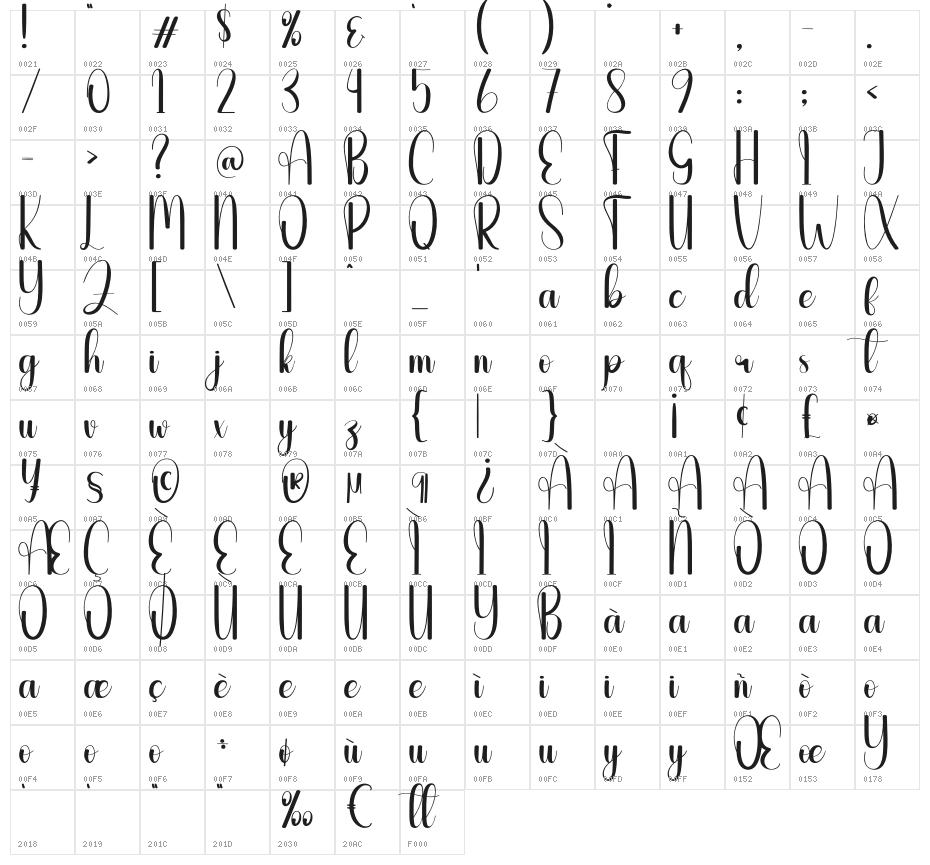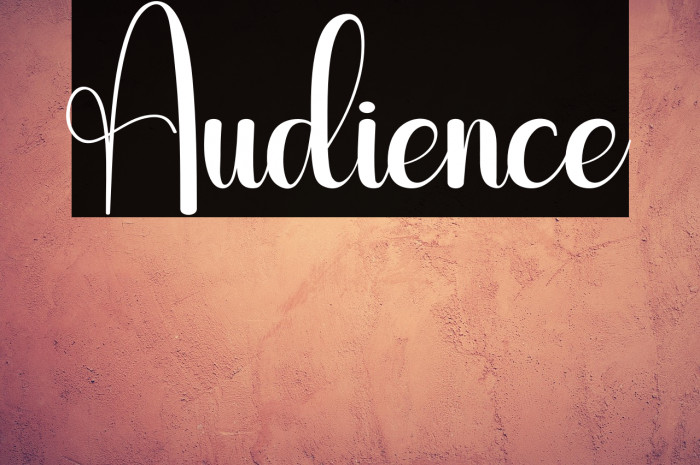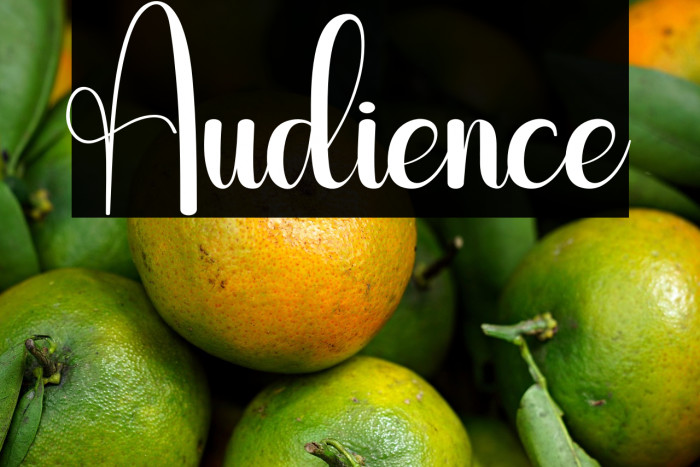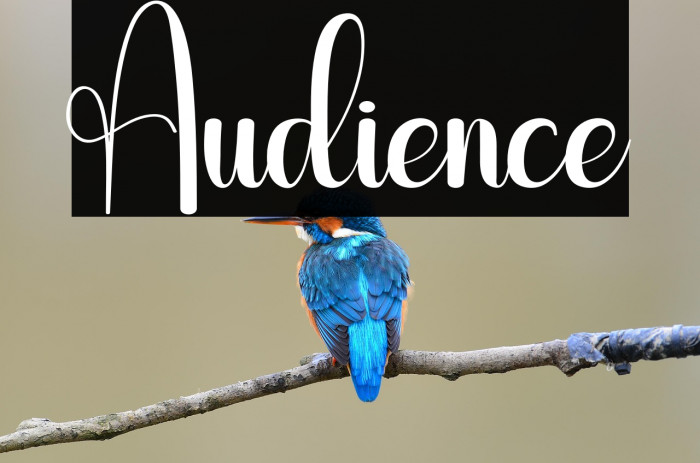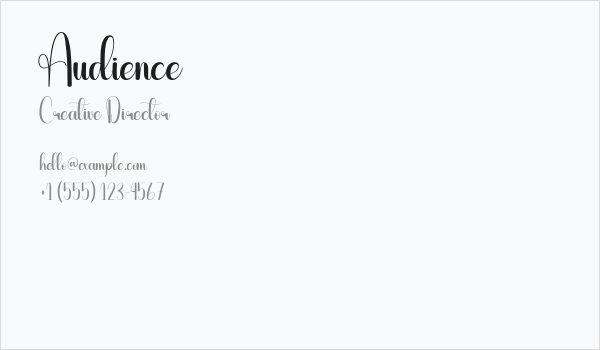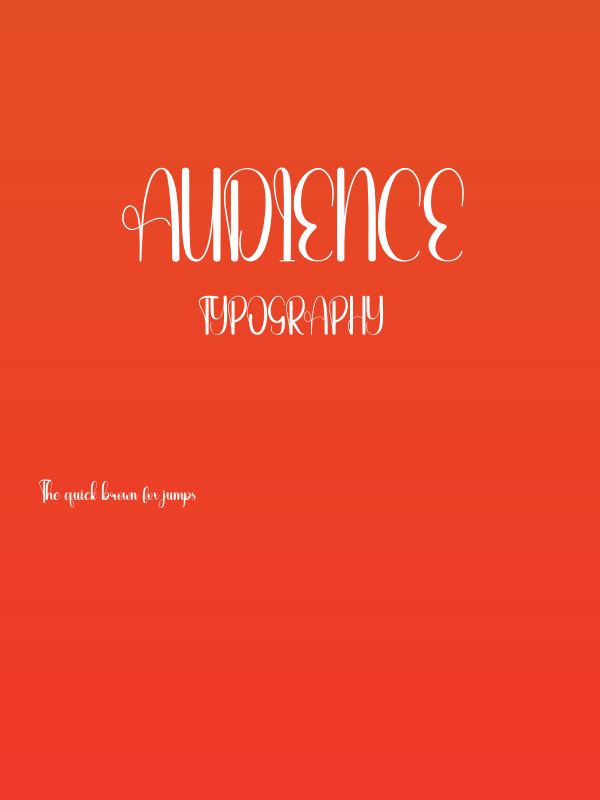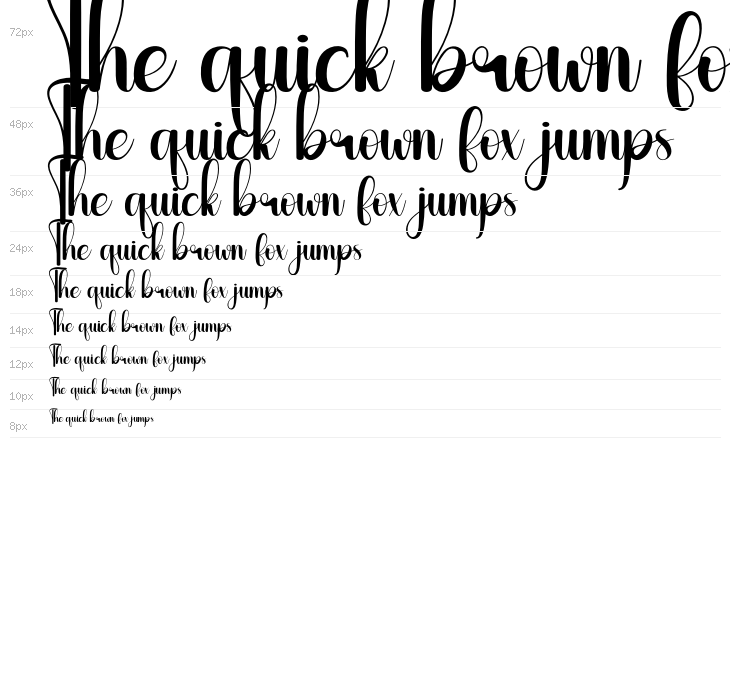
Audience Font
This font exhibits a unique blend of elegance and flair, characterized by its flowing, cursive style with elongated strokes and loops. The uppercase letters are tall and slender, with graceful curves that add a sense of sophistication. The lowercase letters maintain a consistent style, featuring smooth connections and a rhythmic flow. Numbers and special characters follow the same aesthetic, ensuring a cohesive look across all text elements. The font's overall appearance is both decorative and stylish, making it suitable for projects that require a touch of elegance and creativity.
| Proposed Projects | Ideal for wedding invitations, greeting cards, branding, and logo design where a touch of elegance is desired. |